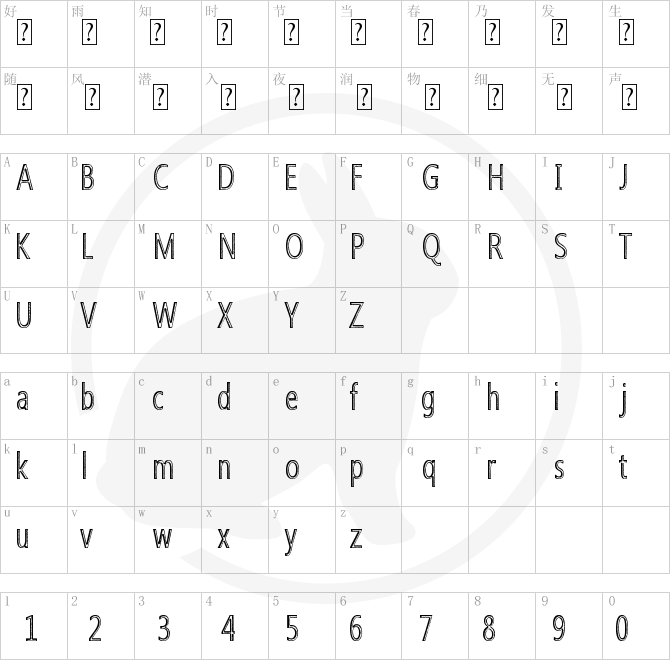
- Font Name:Qoncrete
Qoncrete.ttf is a very beautiful artistic font, Qoncrete.ttf is widely used in the design and printing of various books and pictures,Qoncrete.ttf has a strong visual impact,Qoncrete.ttf is a commonly used font in newspapers, magazines and books, and is used in posters, e-commerce Poster design, store design, logo design, font design and other fields.Qoncrete.